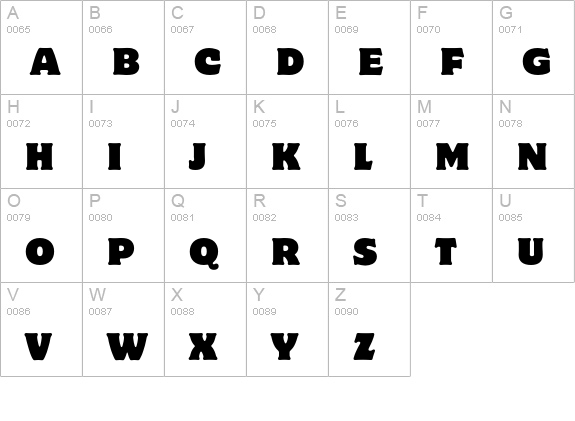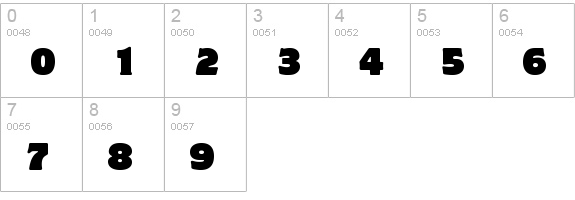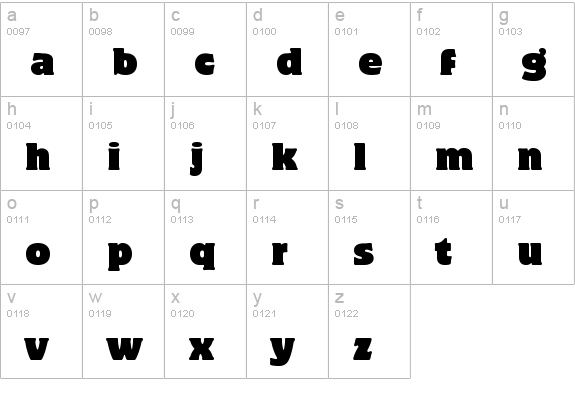
MotterCorpusEF-Regular Font Details
MotterCorpusEF-Regular is the standard, neutral variant in the MotterCorpusEF typeface family \xE2\x80\x94 well suited to general body text, paragraphs, and standard typographic work.
MotterCorpusEF-Regular is a versatile and elegant font that exudes sophistication and modernity. Its clean lines and balanced proportions make it perfect for a wide range of design projects, from branding to editorial layouts. This font offers a sense of professionalism and refinement, making it ideal for conveying a sense of luxury and exclusivity. The MotterCorpusEF-Regular font is not only visually appealing but also highly readable, making it a great choice for both print and digital applications. Whether you are designing a magazine layout, creating a logo, or crafting a sleek website design, this font is sure to make a statement. What's even better is that MotterCorpusEF-Regular is available for free download at FontsMarket.com. This means you can easily access this stylish and sophisticated font without any cost, making it a valuable addition to your design toolkit. Don't miss out on the opportunity to elevate your projects with the timeless appeal of MotterCorpusEF-Regular font.